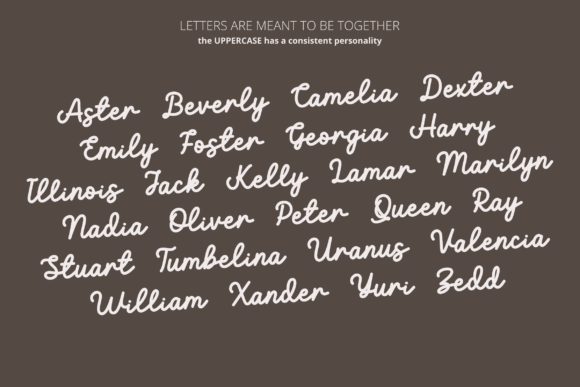
Hopefully Font
Hopefully is a swirly and sweet-looking cursive font. It has unique characters that work together to form beautiful typography in your designs. It works well for branding design, logos, apparel, and printed designs. This font is PUA encoded, which means you can access all glyphs and swashes with ease!